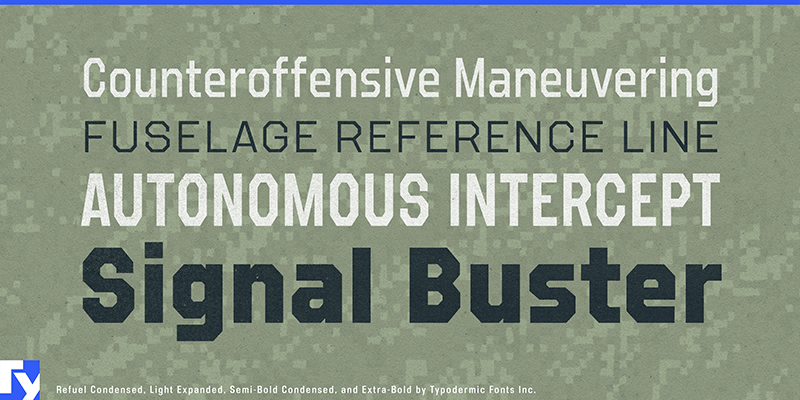
Refuel
Refuel is a modern geometric sans serif inspired by mid-century aviation lettering. Its octagonal framework gives the design a clean, purposeful structure that feels both technical and confident. Compact proportions and crisp geometry make it well suited to interfaces, packaging, sports branding, and signage where clarity and impact matter. Small details—like distinct forms for easily confused characters—keep it readable in dense settings, giving Refuel a precise, engineered voice across modern design work. This font includes a license that allows free commercial use: sometimes referred to as a desktop license. This allows you to install the font on a computer and use it to create posters, web graphics, game graphics, t-shirts, videos, signs, logos and more. Read the license agreement for details. If you'd like to embed this font in an app, on the web or anything that's not covered by the desktop license agreement, visit the link below. You'll find distributors who offer different types of licenses, or you can contact me for help. https://typodermicfonts.com/refuel/ This free font is part of a larger font family. Check out the rest of the family through the link above.